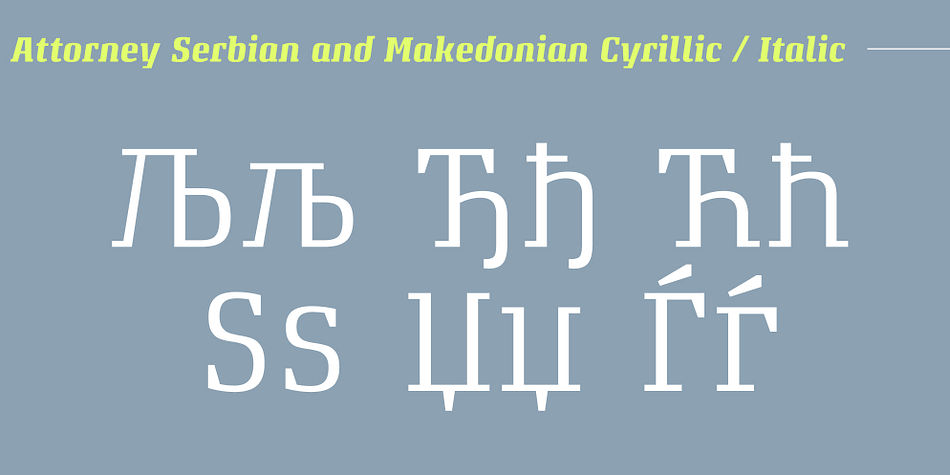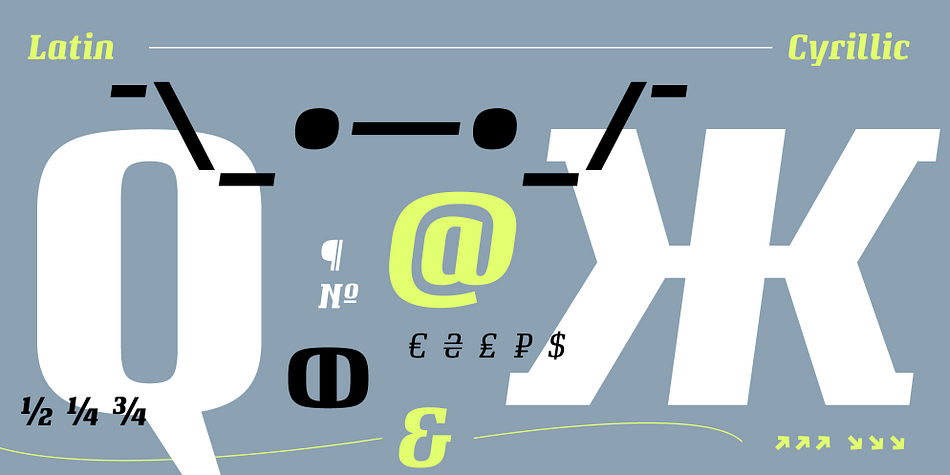
Attorney
Attorney is a slab serif font family. This typeface has twenty styles and was published by Schriftlabor.
Attorney’s design goes back to sketches for a law firm logo, hence the name. The typeface shows a systematic, yet unconventional placing of serifs, it has hard corners and a clean geometric appearance, all of which make it a perfect fit for any straight-faced and clear design.
Re-released in 2024, Attorney 2.0 comes with all-new Cyrillics, improved drawings, improved kerning, improved OpenType features. Attorney 2.0 now has no less than 9 weights, from Extralight to Black, each of them accompanied by an Italic, totalling in 18 styles. Each Attorney font contains more than 1000 glyphs, including small caps, stylistic sets, and the capital German sharp ẞ. Attorney 2.0 supports more than 240 languages.